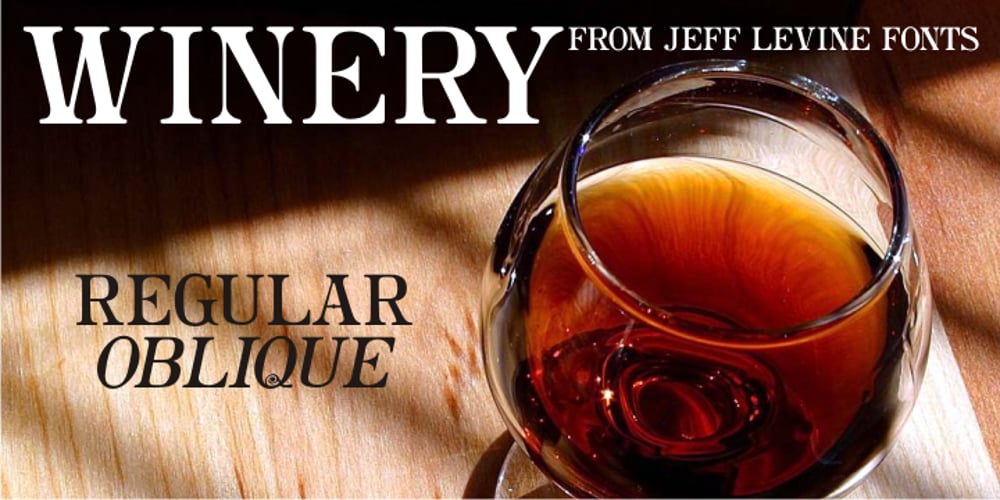
Winery JNL Font Family was designed by Jeff Levine and published by Jeff Levine. Winery JNL contains 2 styles and family package options. A rubber stamp printing set from the 1930s (or possibly earlier) was the model for Winery JNL. Containing a pleasant serif font, it also provided a few little touches unusual for such toy sets of the time. The horizontal crossbar of the H has a diamond embellishment, as does the horizontal stroke of the number 3. Additionally, the lower right tail of the G curves away from the letter and the Q has a spiral tail. Re-drawn from scans of the original stamp impressions, this typeface is available in both regular and oblique versions.